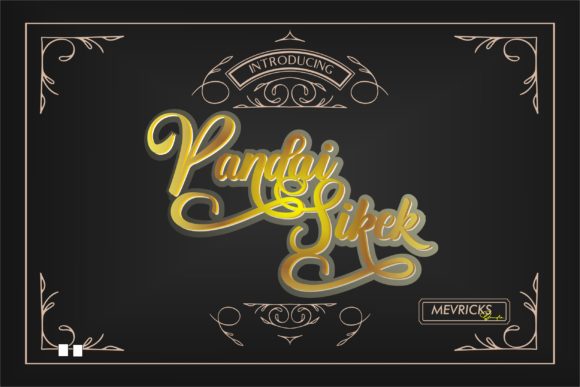
In a realm where fonts reign supreme, Pandai Sikek Script Font emerges as a radiant gem, captivating your designs with its enchanting allure. Crafted by the skilled artisans of Lettercorner Studio, this script font unveils the rich heritage of West Sumatra, Indonesia, transforming your digital creations into exquisite works of art.
Pandai Sikek, meaning "skilled hand" in the Minangkabau language, is more than just a collection of letters; it's a testament to the intricate artistry of Indonesian craftsmanship. Inspired by the beauty of woven fabrics, each glyph dances across the screen like a thread carefully woven into a tapestry of words.
This extraordinary font family exudes an air of elegance and sophistication, instantly elevating your designs to new heights. Its hand-lettered style lends a touch of authenticity and charm, evoking a sense of nostalgia and cultural appreciation.
Whether you're composing captivating social media posts, designing eye-catching logos, or crafting stunning invitations, Pandai Sikek Script Font will effortlessly elevate your creations. Its versatility makes it the perfect choice for a multitude of projects, allowing you to express your unique style effortlessly.
Embrace the artistry of woven fabrics and infuse your designs with a touch of cultural elegance. Unleash the power of Pandai Sikek Script Font today and embark on a journey of creative exploration, where beauty and heritage intertwine to produce breathtaking results.